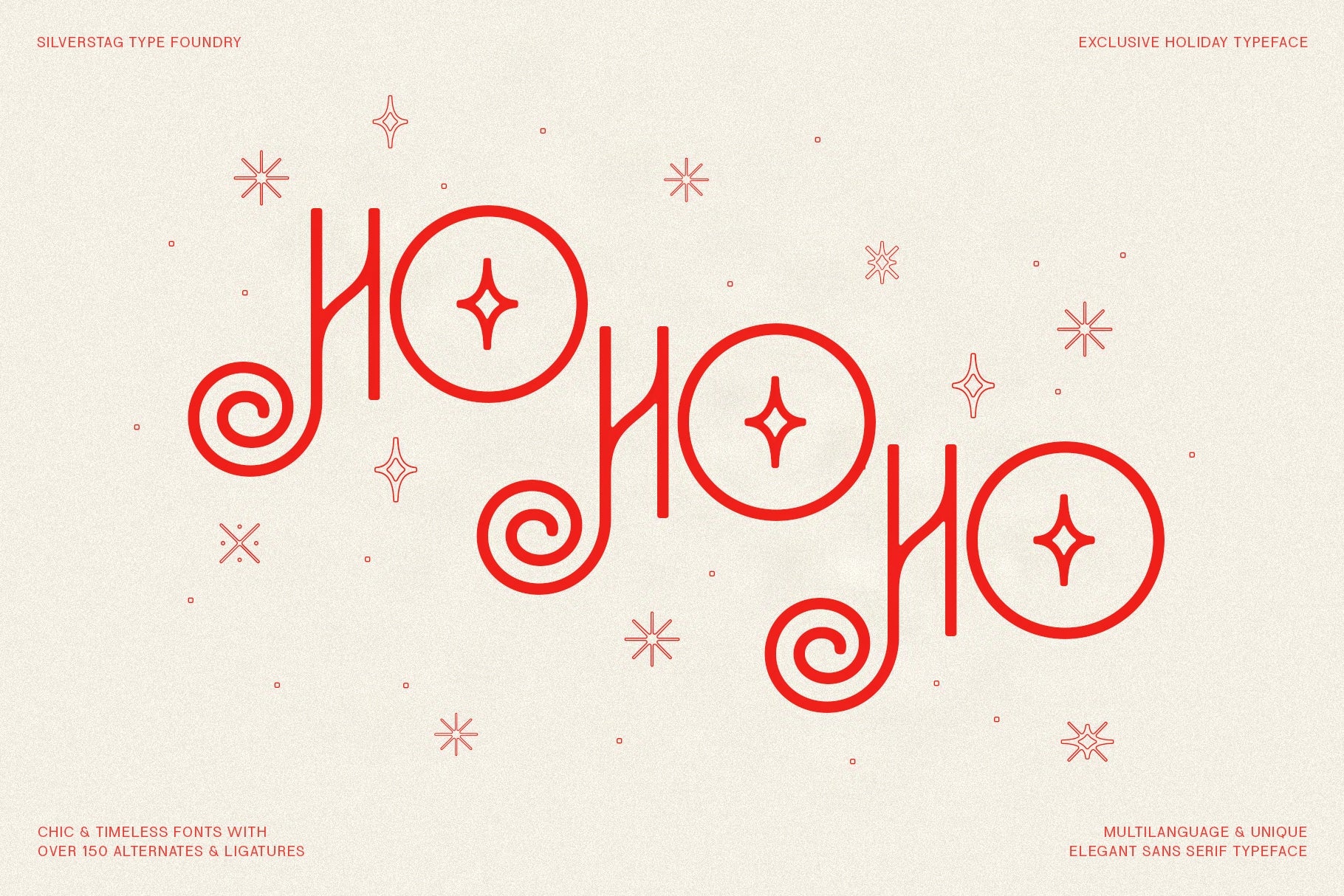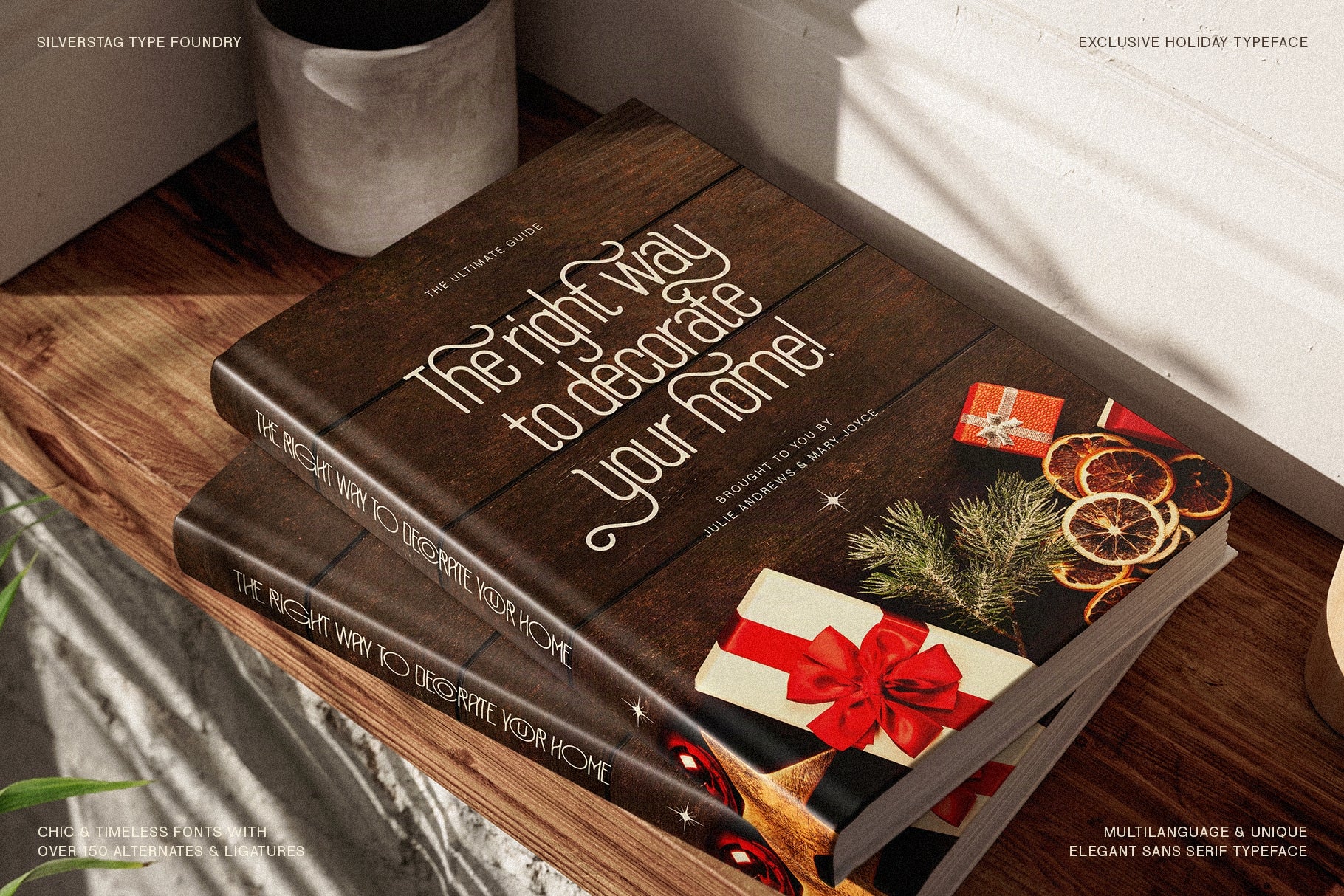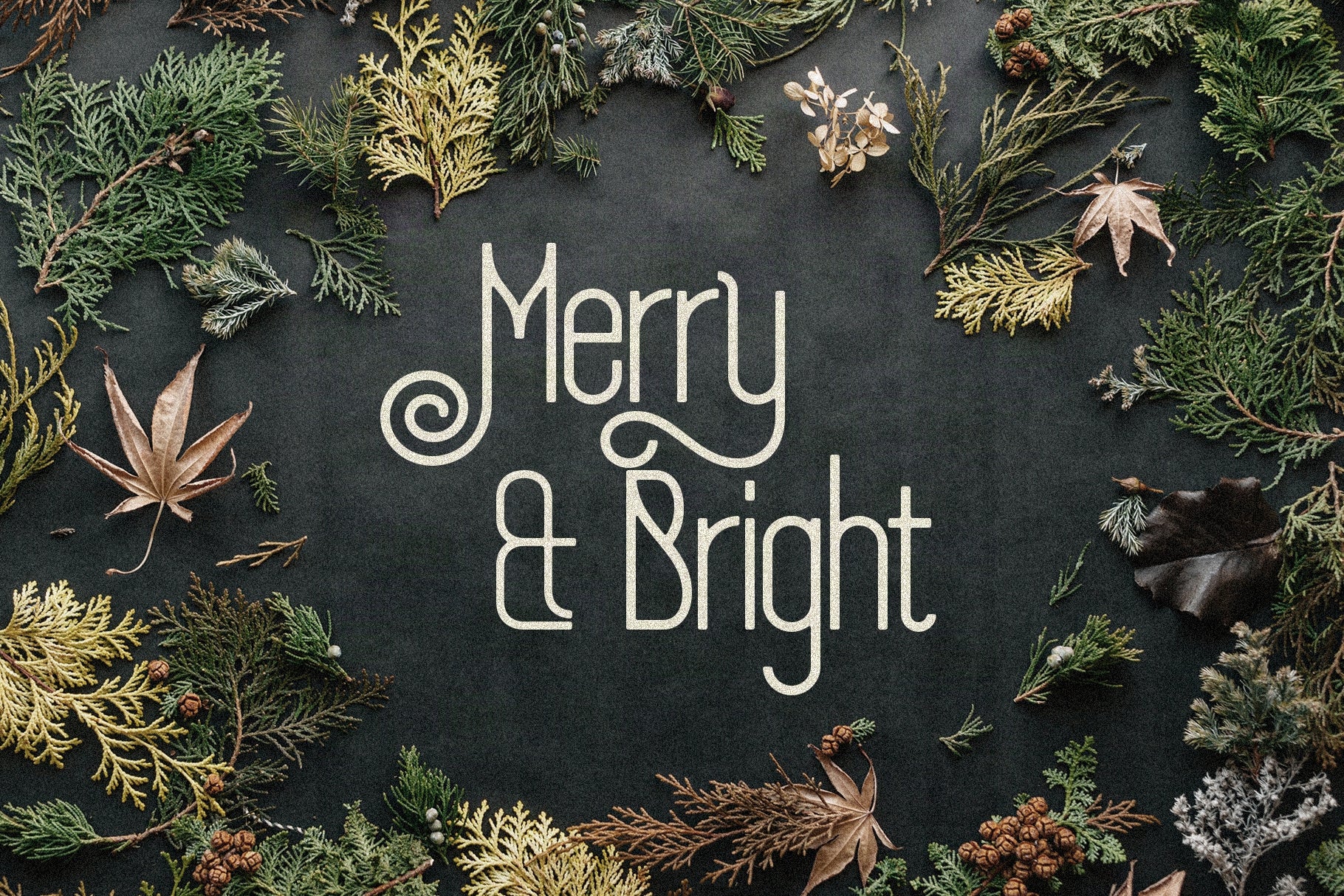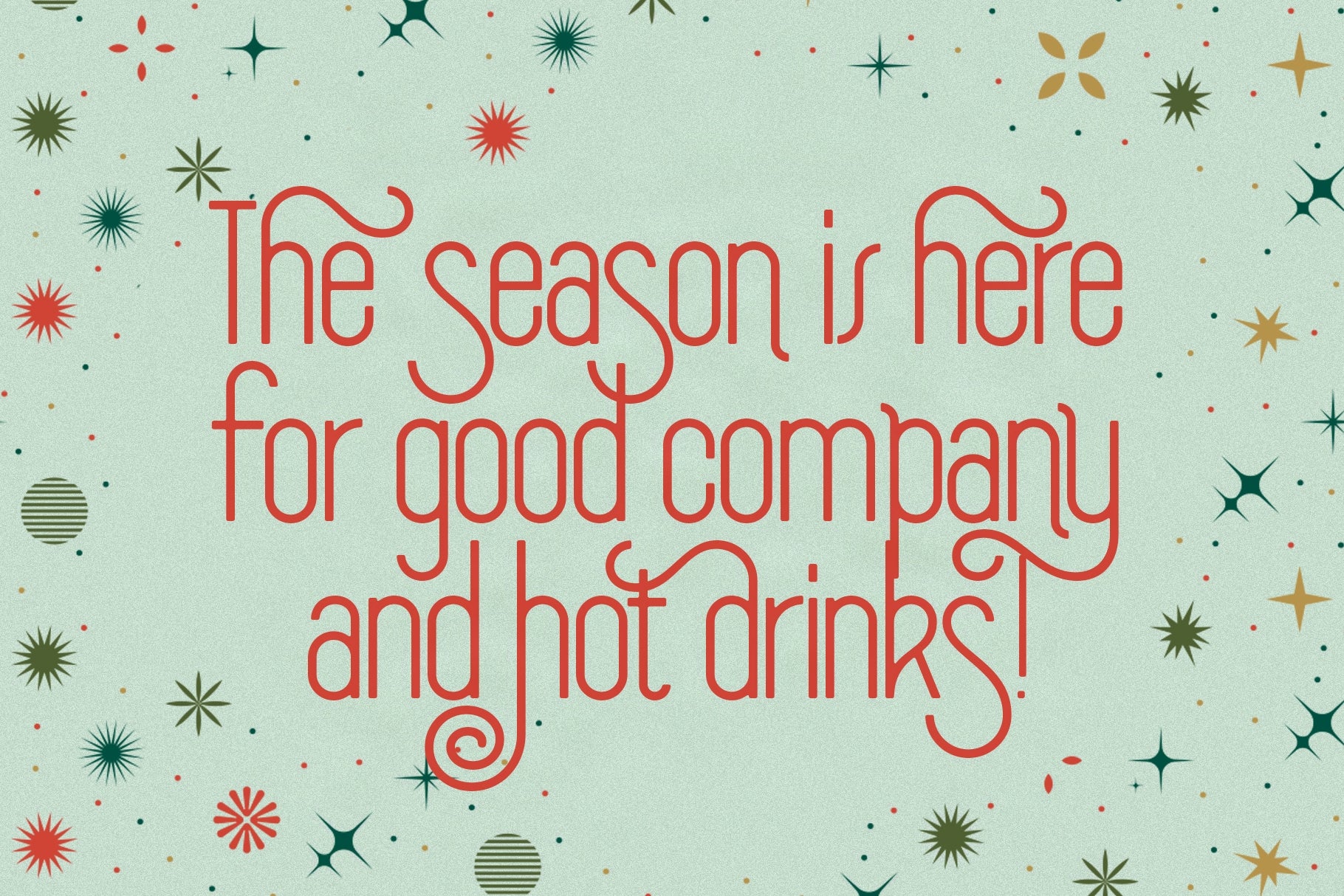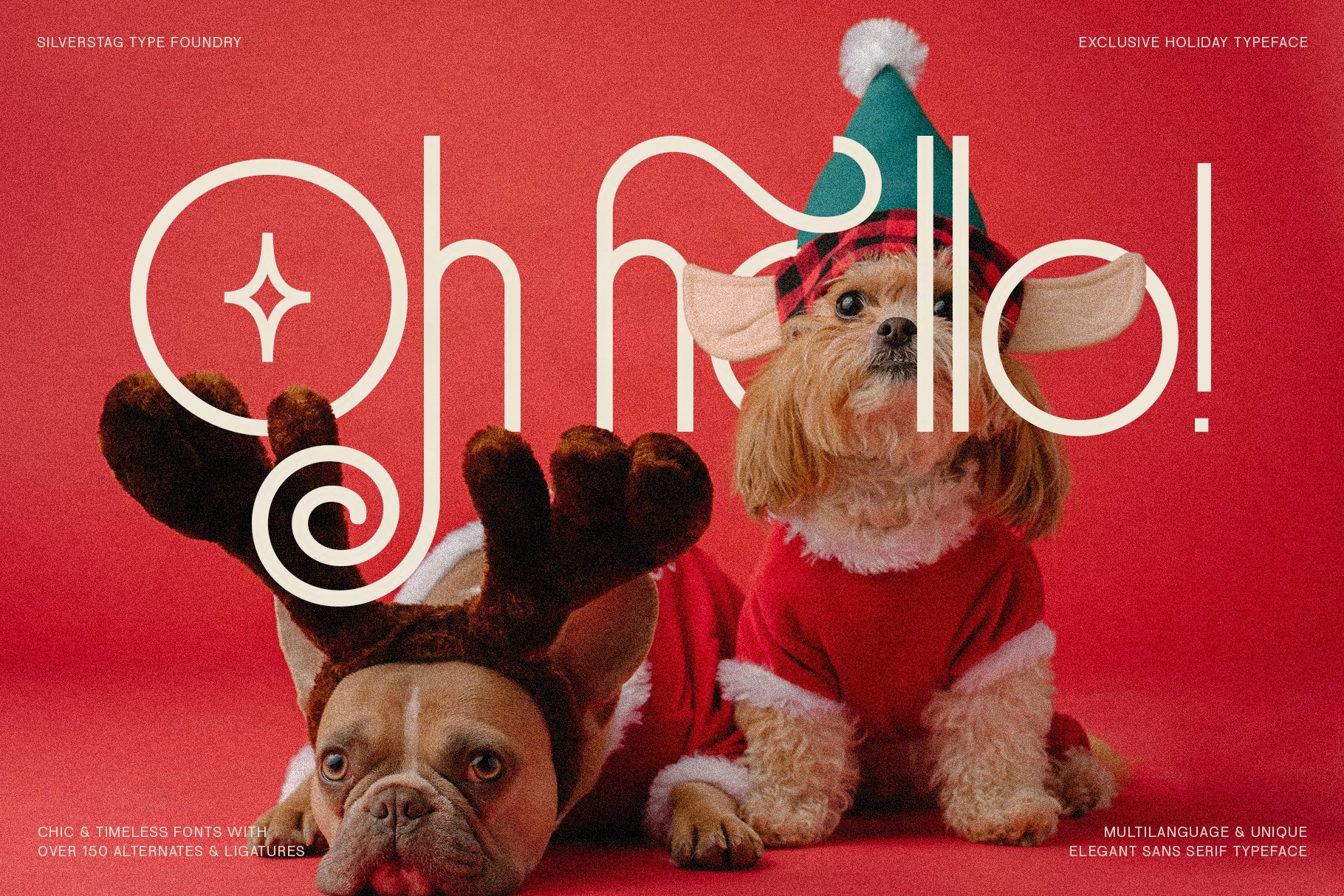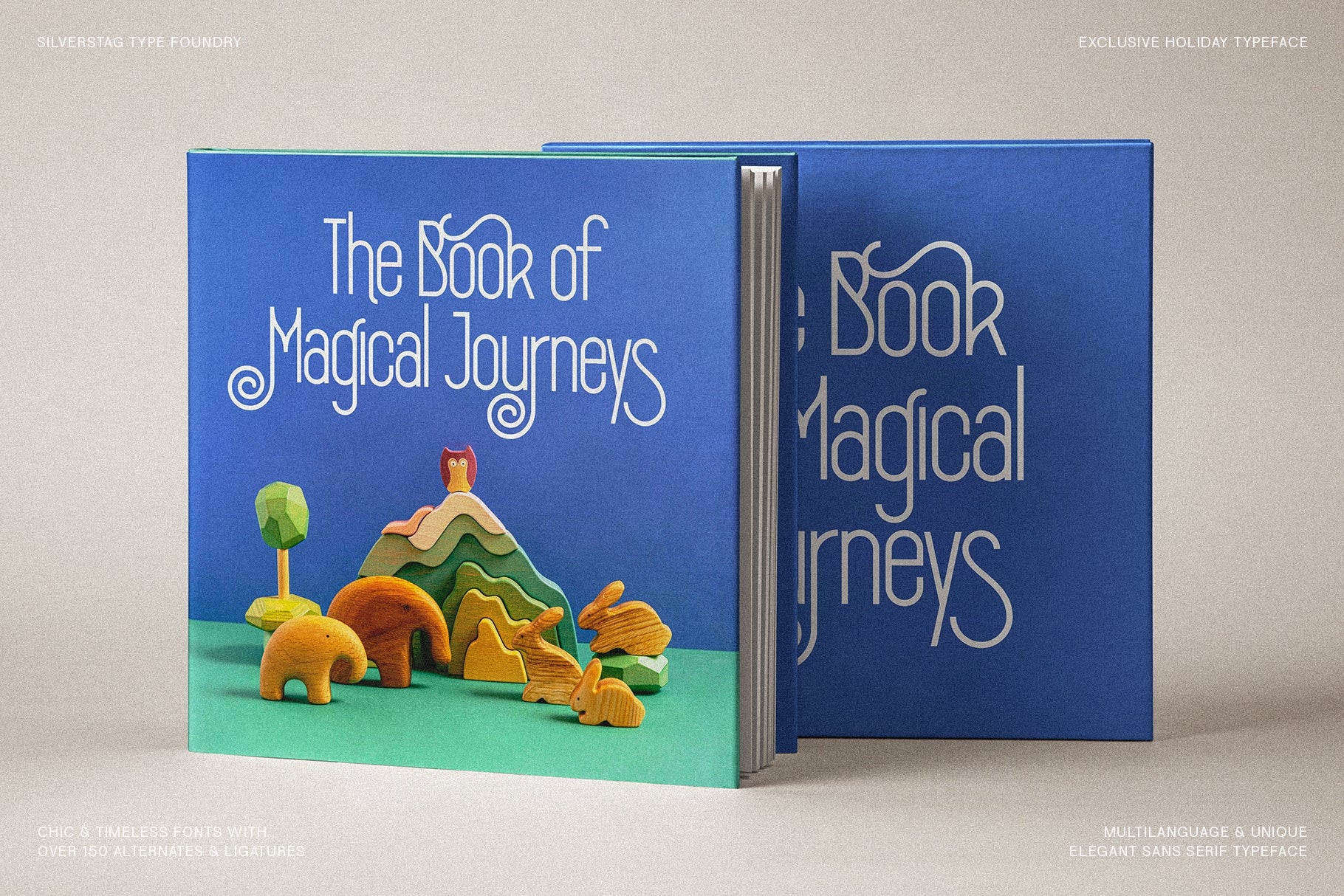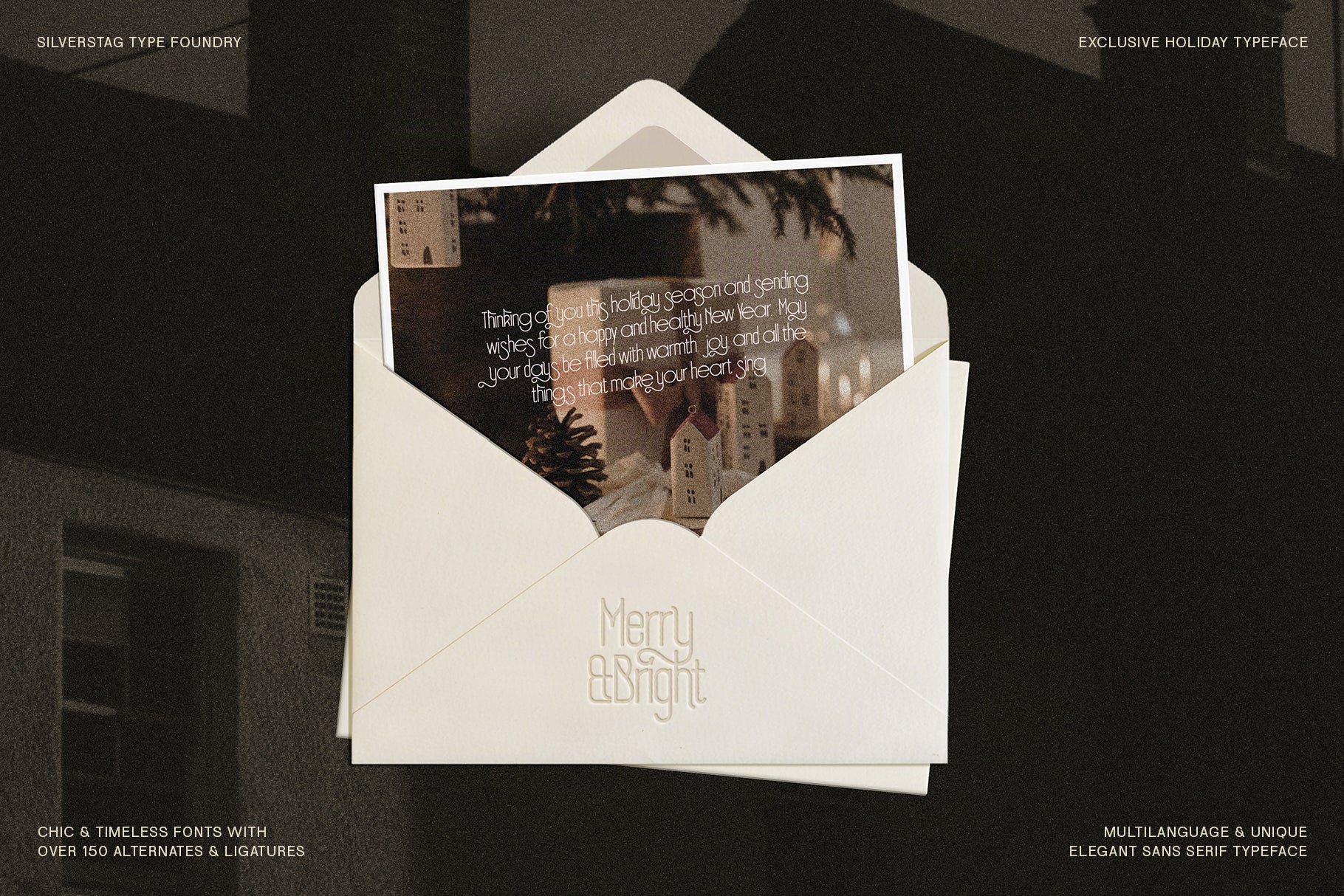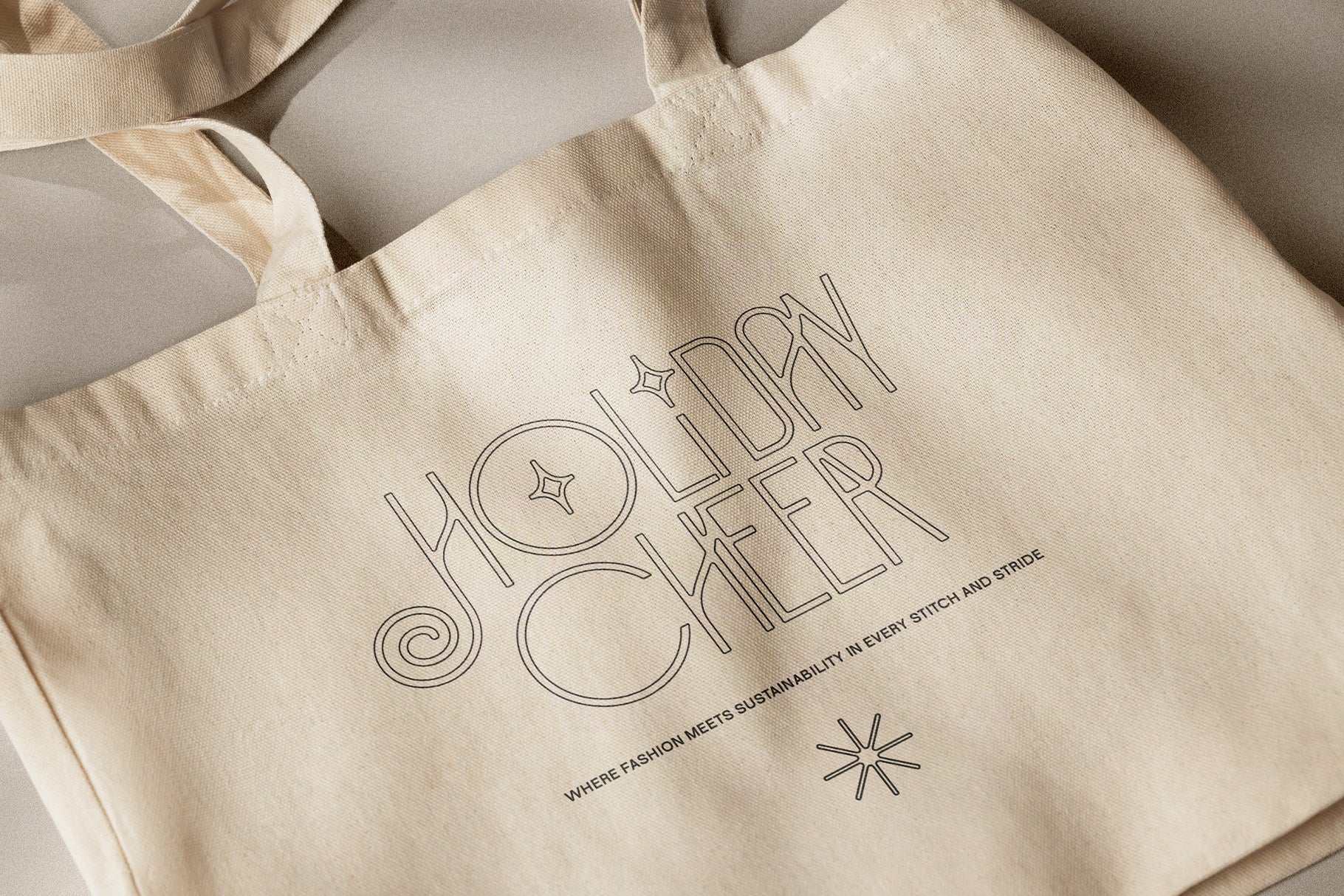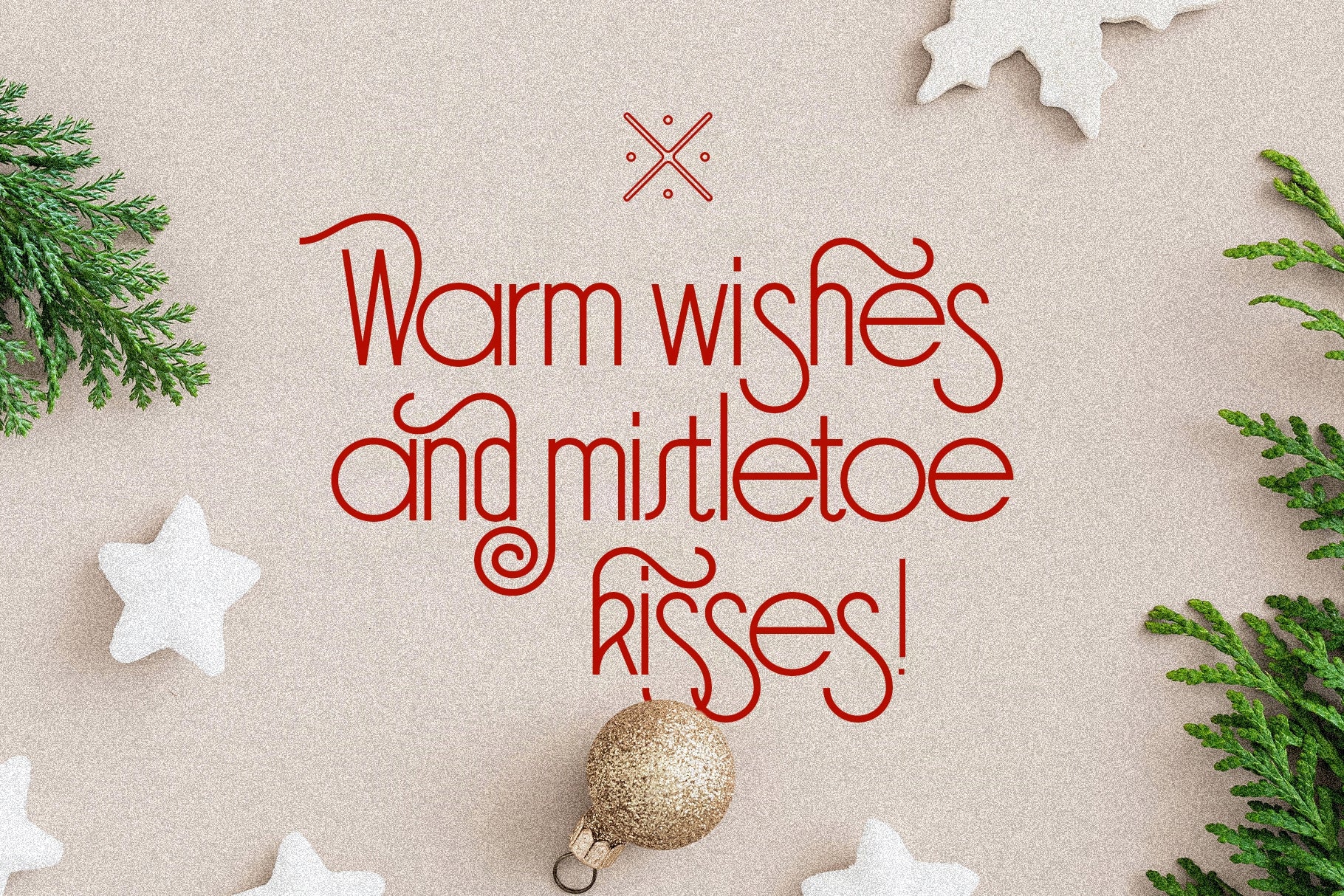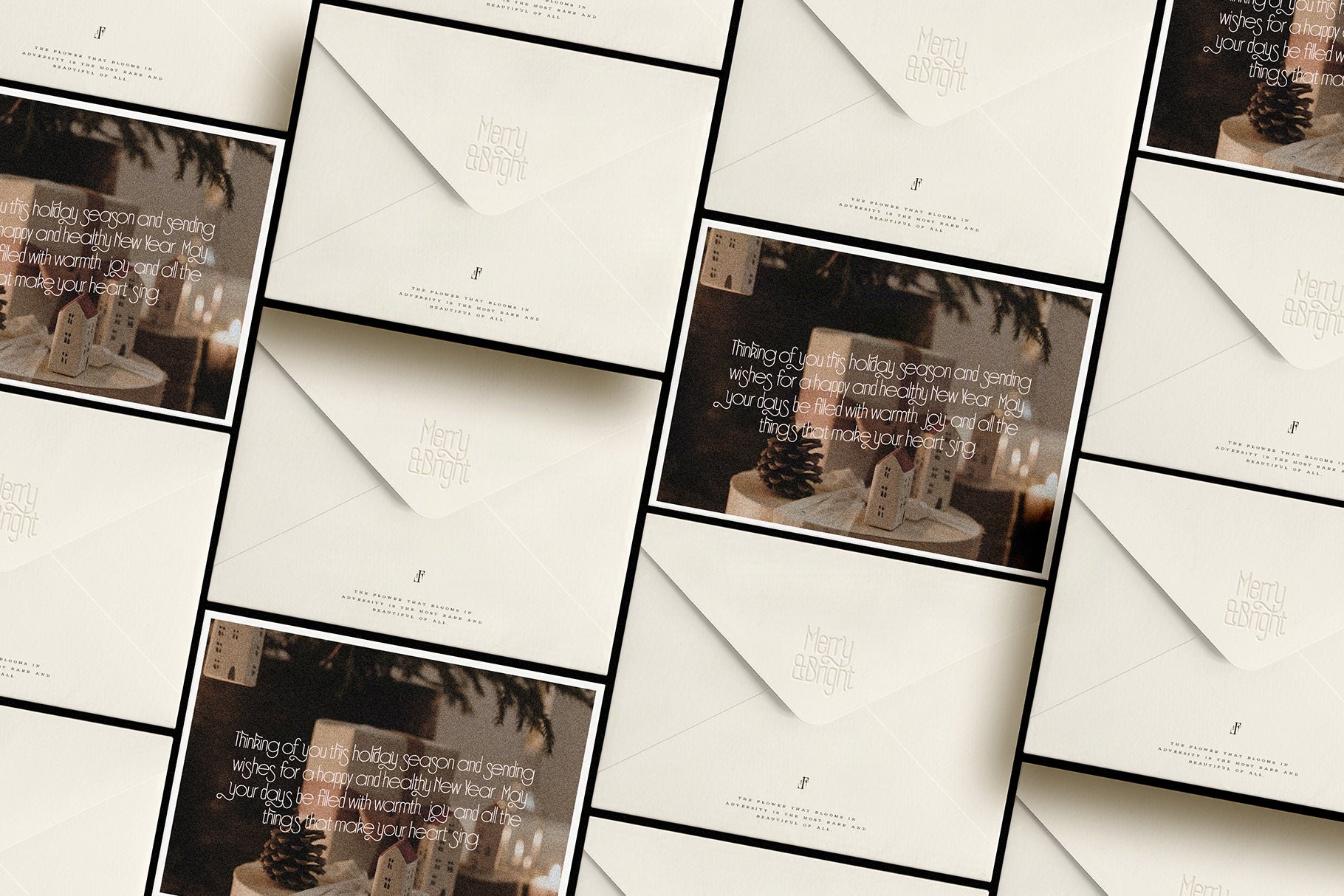
SLTF Holiday Whispers is a modern serif typeface designed for elegant seasonal design, refined branding, and high-quality editorial work. It features soft curves, subtle contrast, and a contemporary serif structure that makes it ideal for Christmas campaigns, winter layouts, invitations, packaging, magazines, and premium digital content.
This typeface was created for designers who want a holiday aesthetic that feels sophisticated rather than decorative. Holiday Whispers blends a calm, warm mood with clean, modern serif forms, making it suitable for year-round design as well as festive projects. It works beautifully in titles, headings, logos, product labels, social media graphics, gift guides, lifestyle branding, templates, and long-form editorial layouts.
Use cases include:
• Seasonal branding and holiday identity systems
• Luxury packaging for beauty, wellness, and lifestyle products
• Invitations, cards, and announcements for winter events
• Editorial design, magazines, blogs, and digital publications
• Social content and marketing campaigns that need a premium serif look
• Canva and template-based design for content creators and small businesses
• Logo design where a soft, contemporary serif creates a timeless feel
The typeface includes a complete character set with multilingual support, ensuring smooth use across global markets, e-commerce stores, design studios, marketing teams, and creative entrepreneurs.
Whether you are designing festive visuals, building a premium brand, or creating editorial layouts with a calm and modern tone, SLTF Holiday Whispers offers a versatile serif that balances seasonal charm with clean contemporary design.